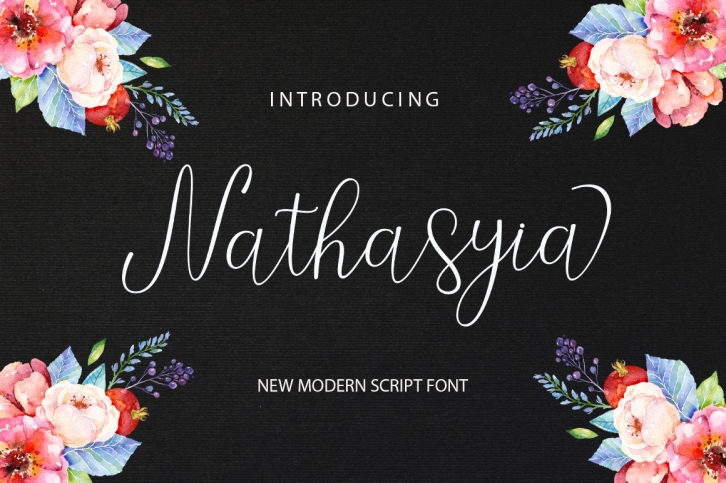
Nathasyia script is a trendy and unique font with an authentic style. It was designed by madjackfont and it's a great choice for creative people who need such a font. It was released on July 30, 2019 and the file size is 8.50 MB. Nathasyia script will add an organic vibe to any design idea!